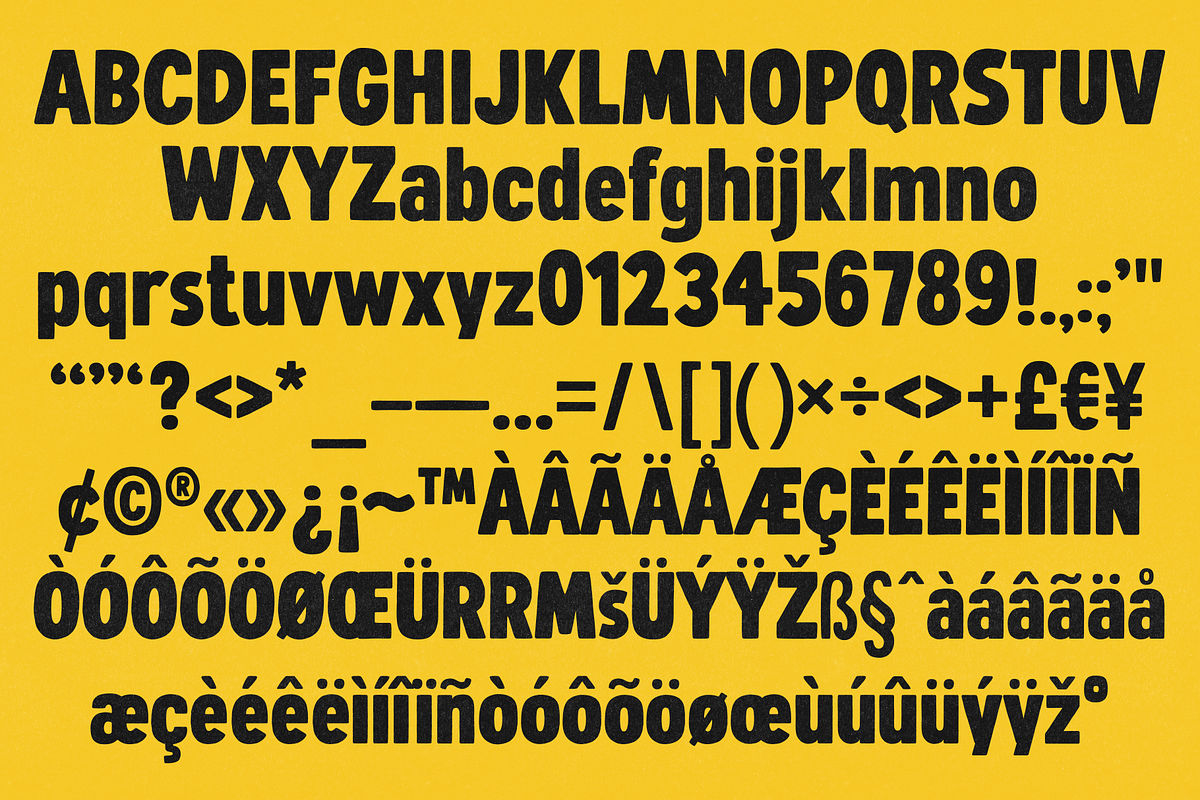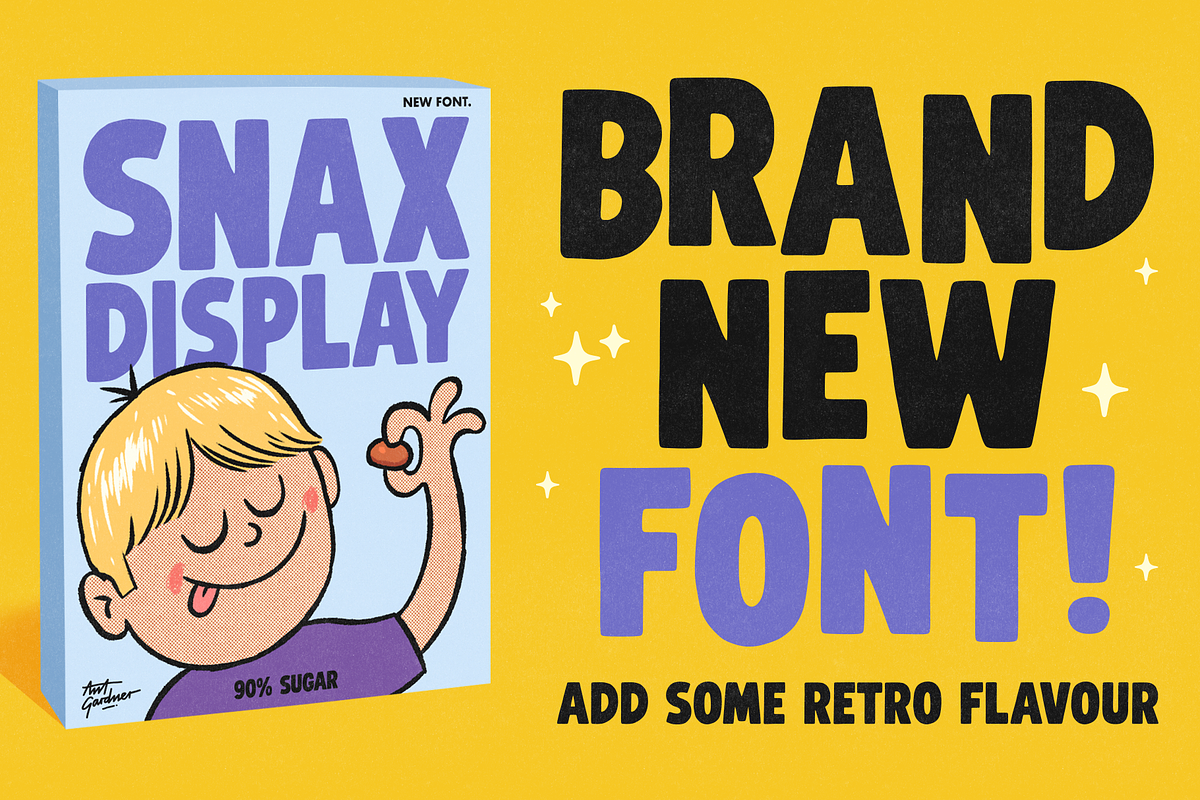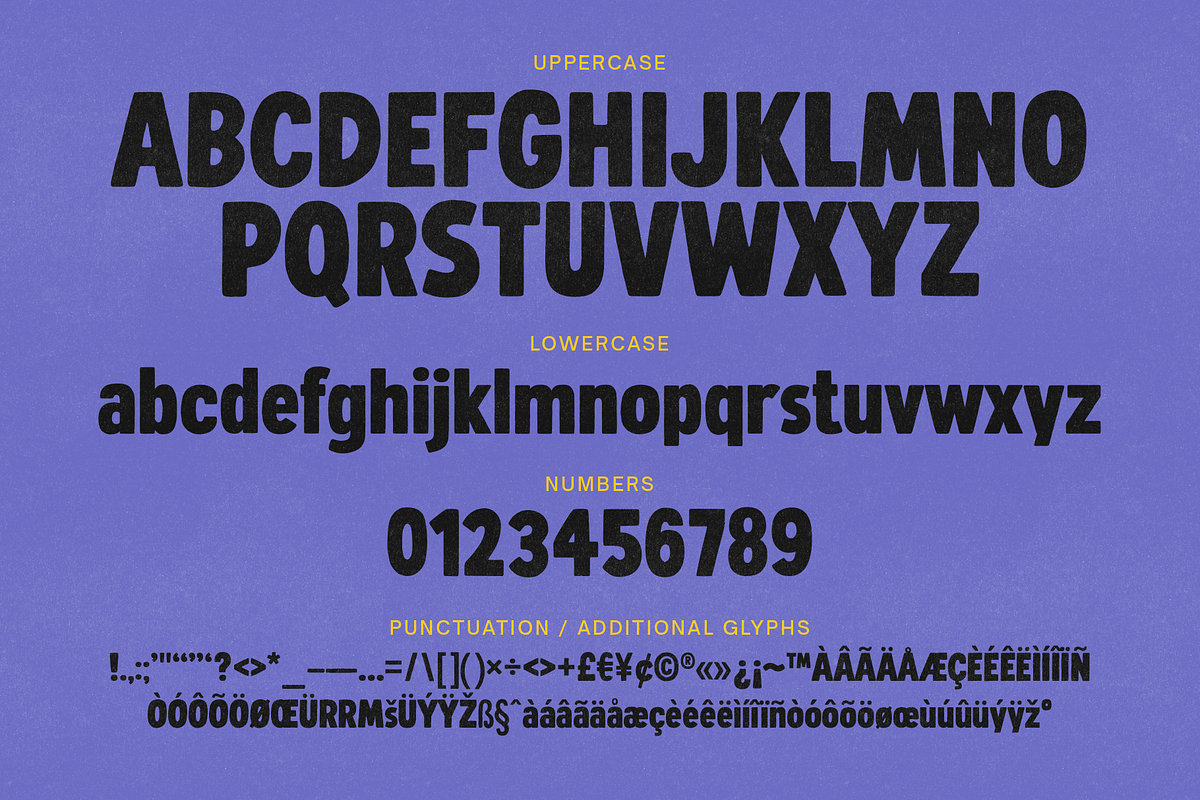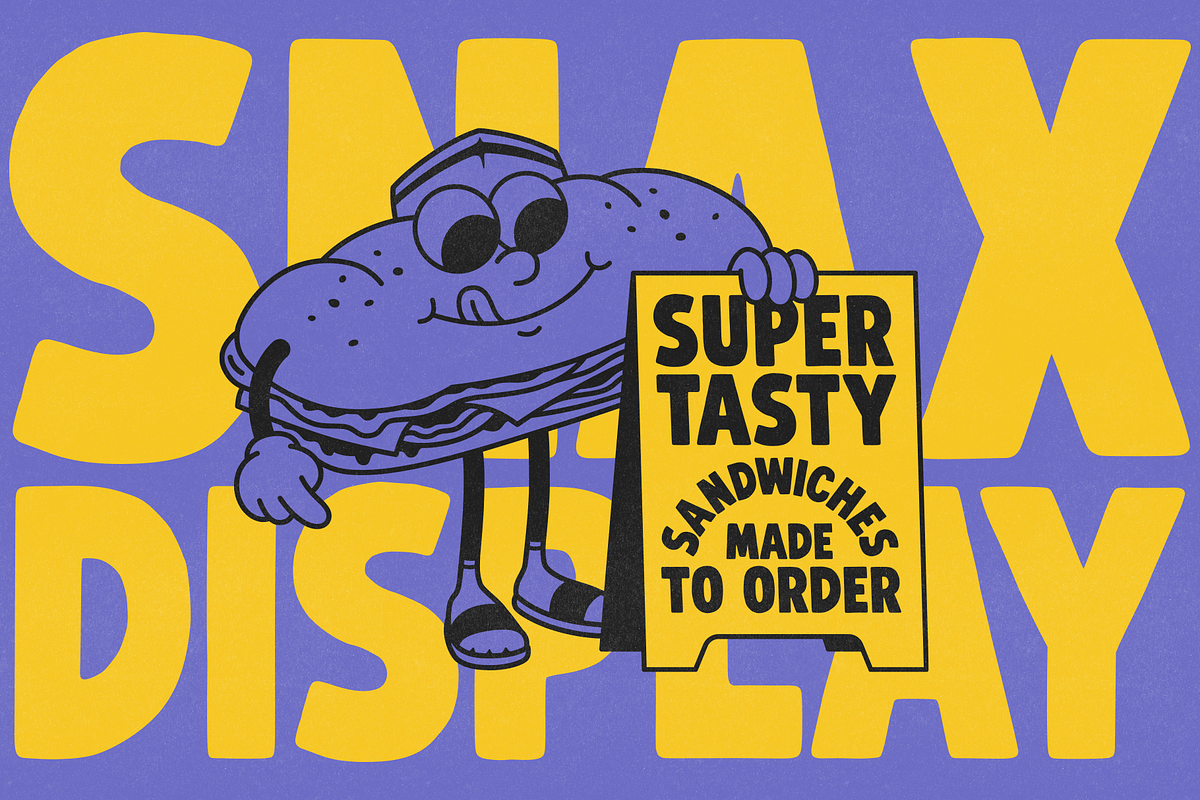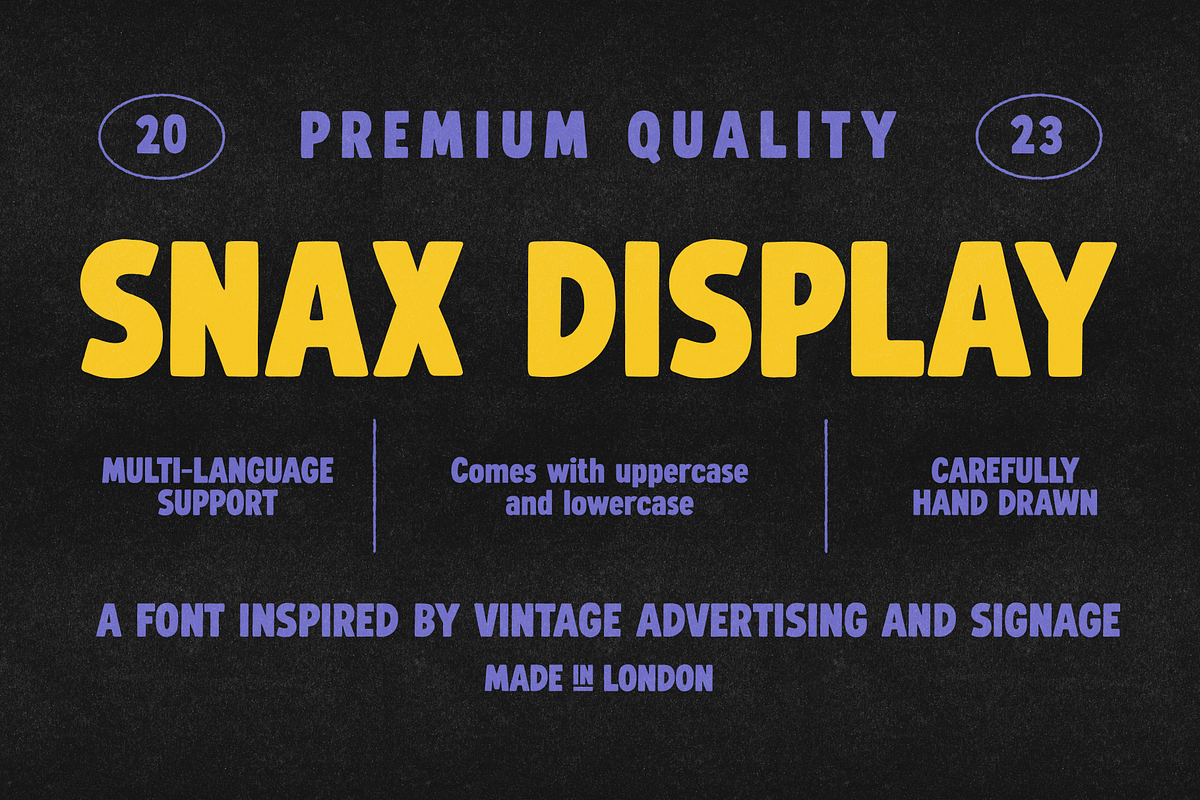
AG SNAX DISPLAY
AG SNAX DISPLAY, the less rounded version of err SNAX ROUNDED. Hand drawn and not perfect but carefully crafted.
Comes with uppercase and lowercase plus full multi-language support.